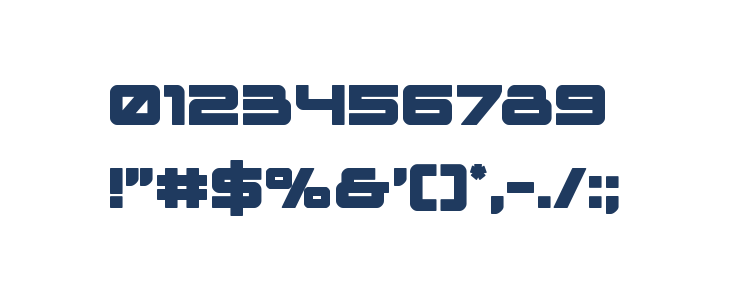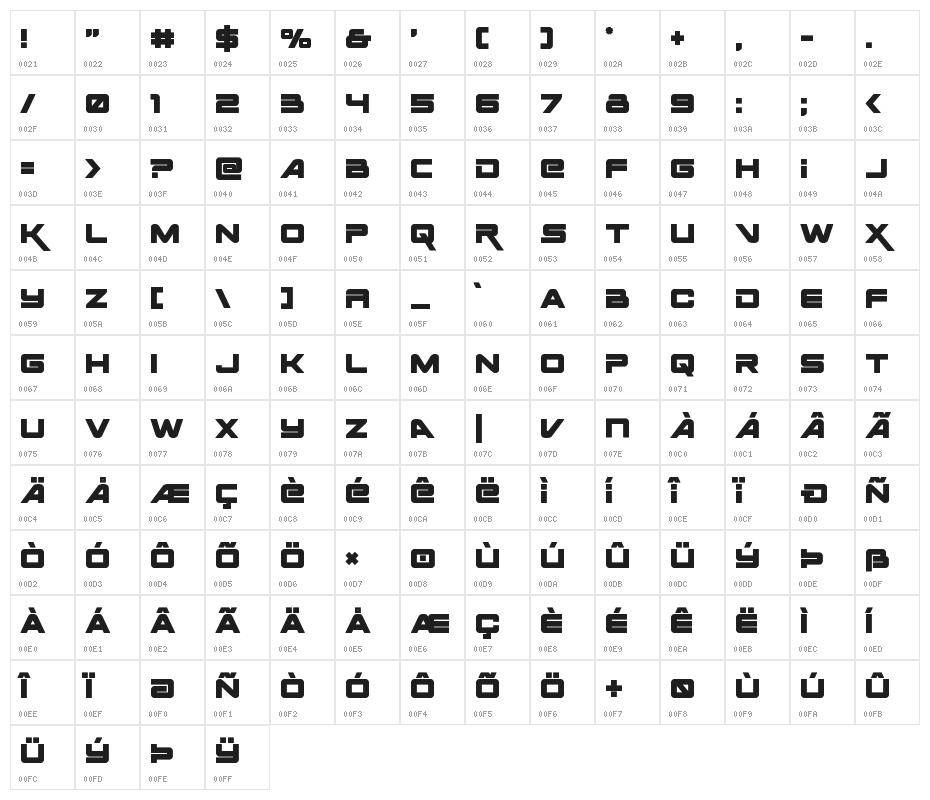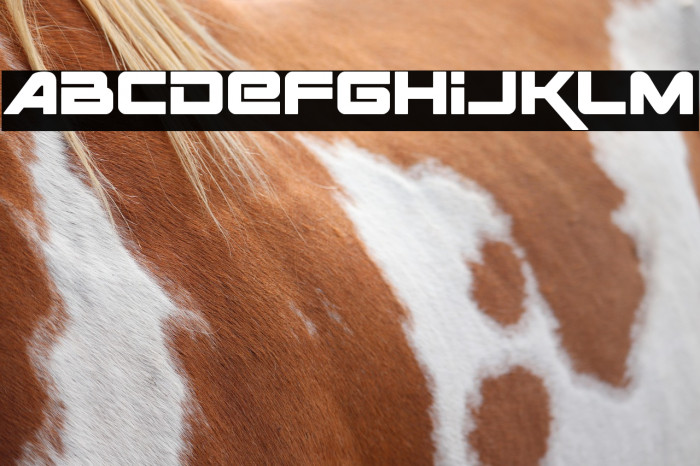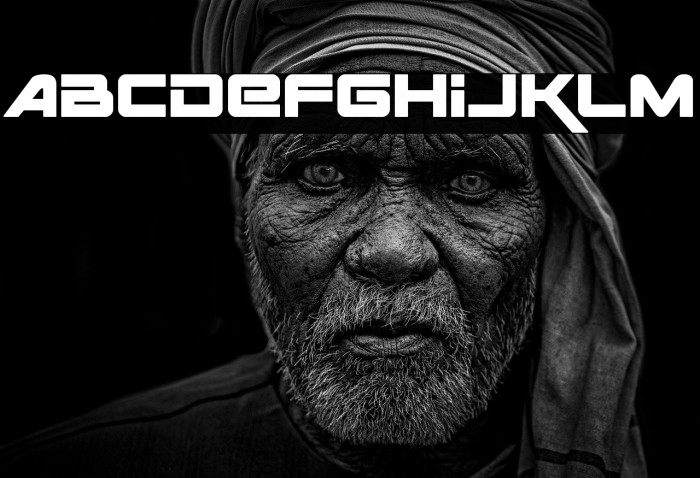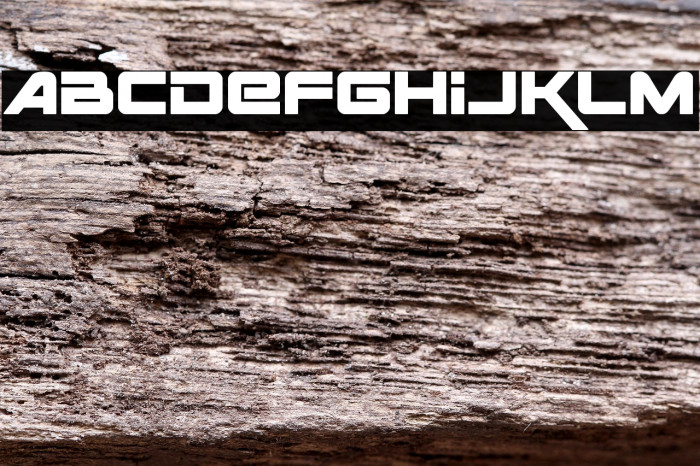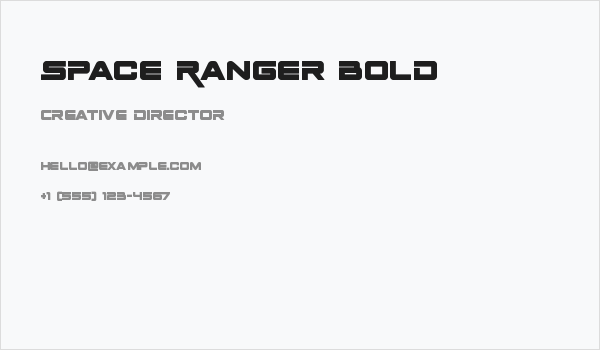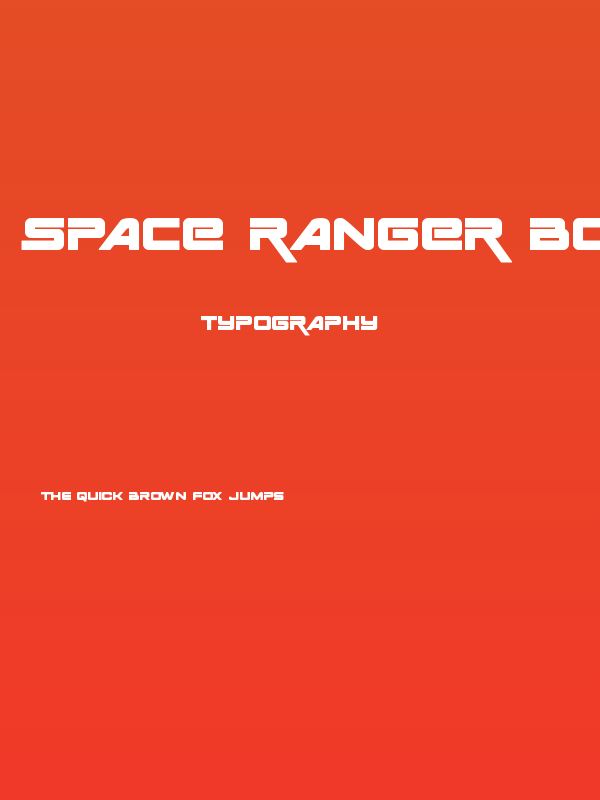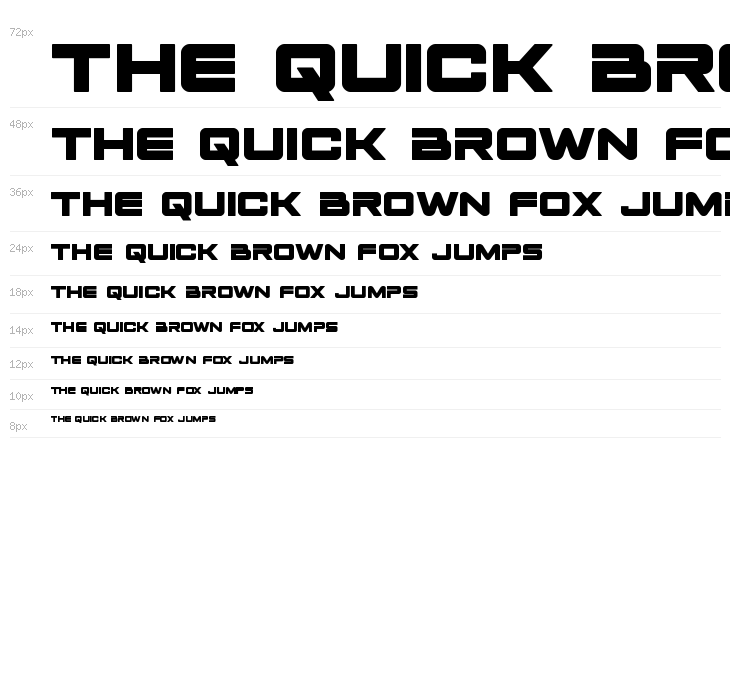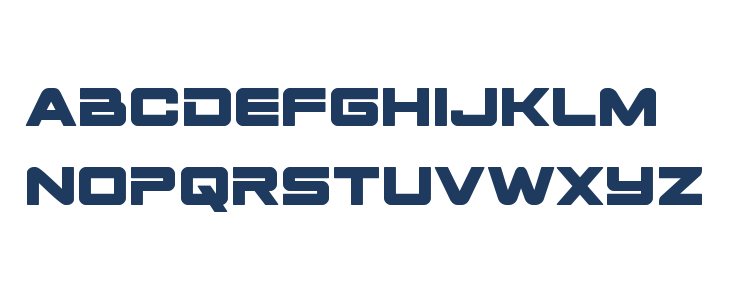
Space Ranger Bold Font
Space Ranger Bold Description
This font features a bold, futuristic design with angular and geometric shapes. The uppercase letters are characterized by sharp edges and a strong presence, making them ideal for impactful headlines. The lowercase letters maintain the same boldness, ensuring consistency across different text sizes. Numbers and special characters are designed with the same angular style, providing a cohesive look. The font's overall aesthetic is modern and tech-inspired, suitable for projects that require a cutting-edge appearance.
| Proposed Projects | Ideal for sci-fi themed posters, video game titles, tech branding, and futuristic web design. |